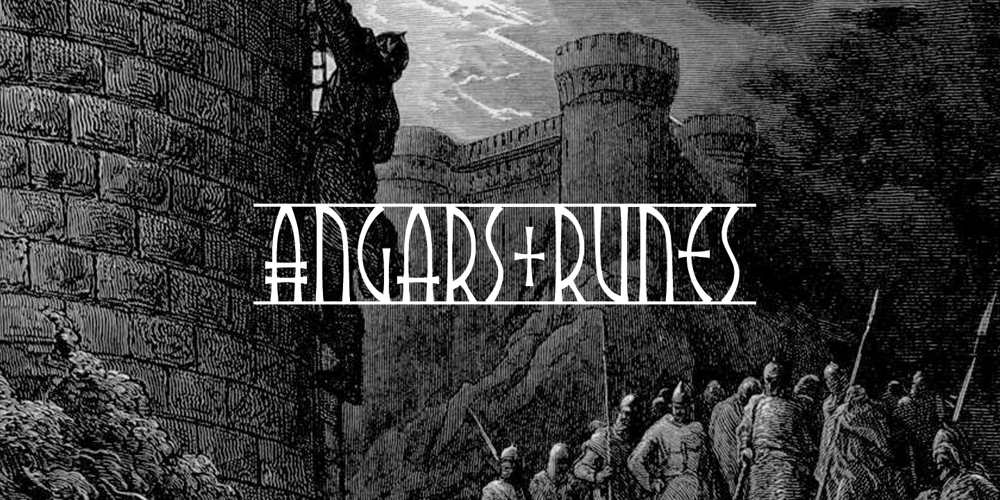
Angars Runes Font Family was designed by Måns Grebäck and published by Mans Greback. Angars Runes contains 1 styles and family package options. Angars Runes is a Middle Age style rune typeface. With engraved letterforms and gothic curves, this font is the perfect addition to a medieval project. The font was drawn and created by Måns Grebäck in 2019. Use the symbols plus + period . multiply × colon : for decorative separators. Angars Runes contains all characters you will ever need, as well as numerals and alternate letters. This is a font with multilingual support.